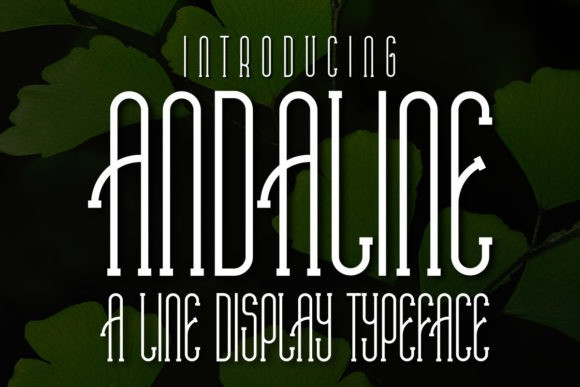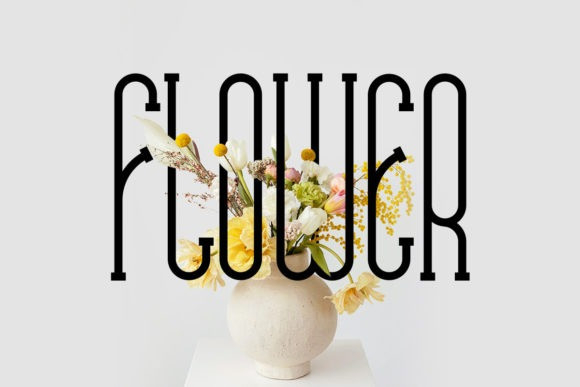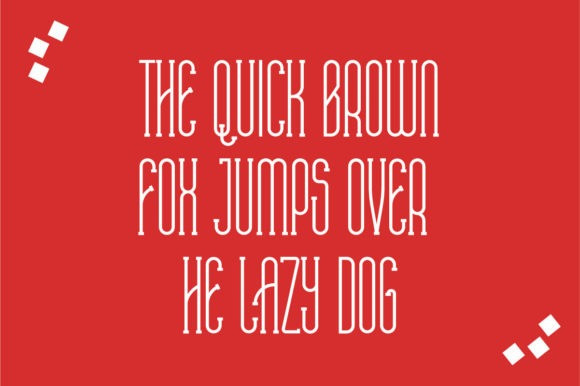
Andaline Font
Andaline is a quirky and modern serif font that will add an interesting accent to your creative projects! Use it on apparel, mugs, invitations, banners, branding, logos, or anything you wish.